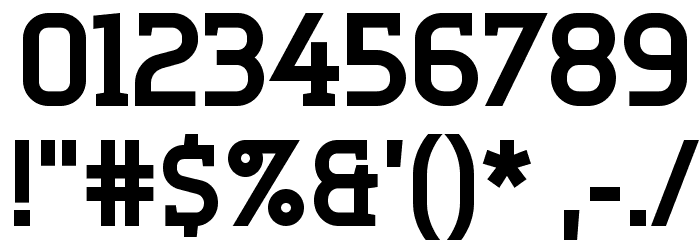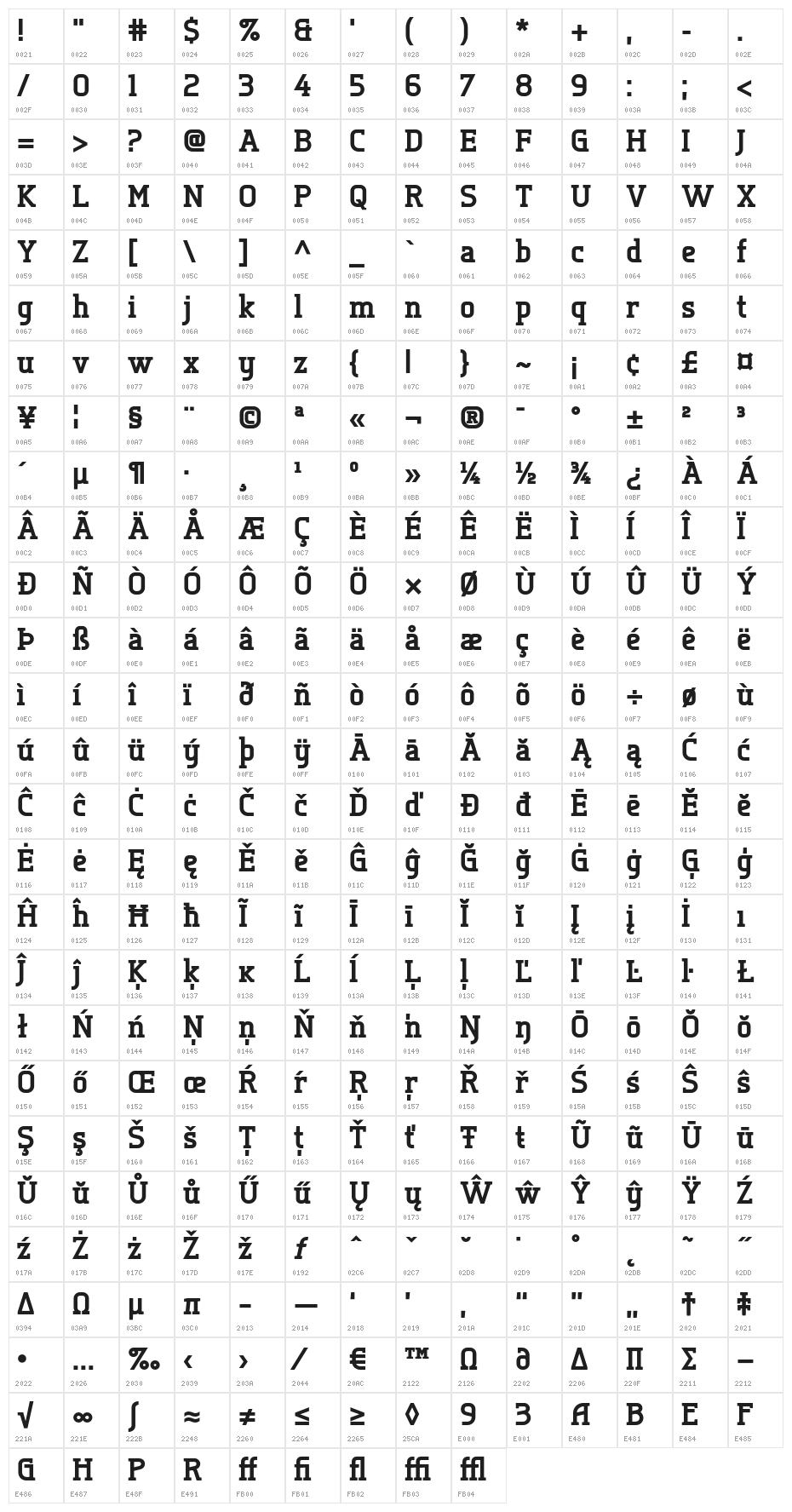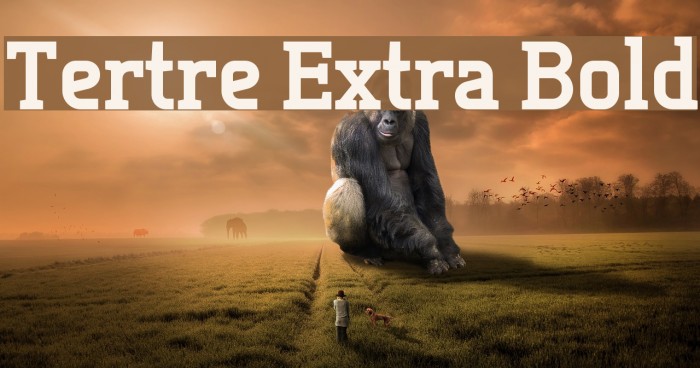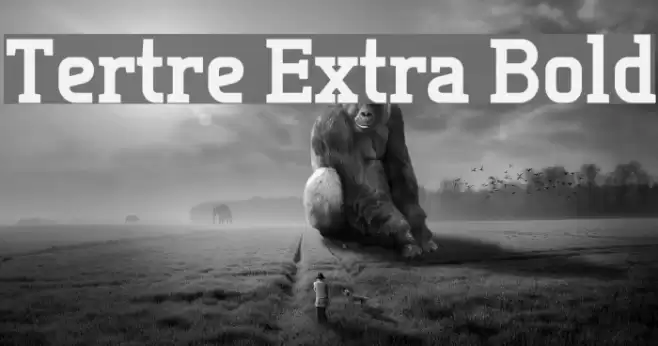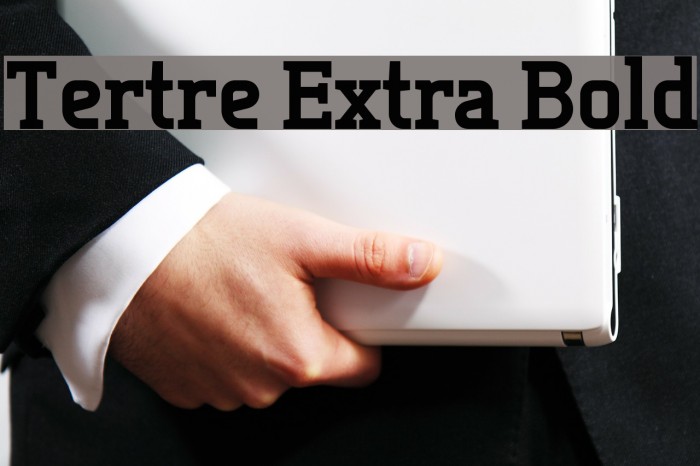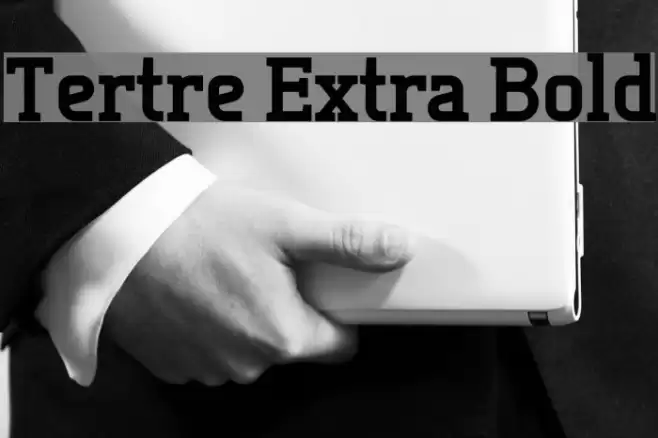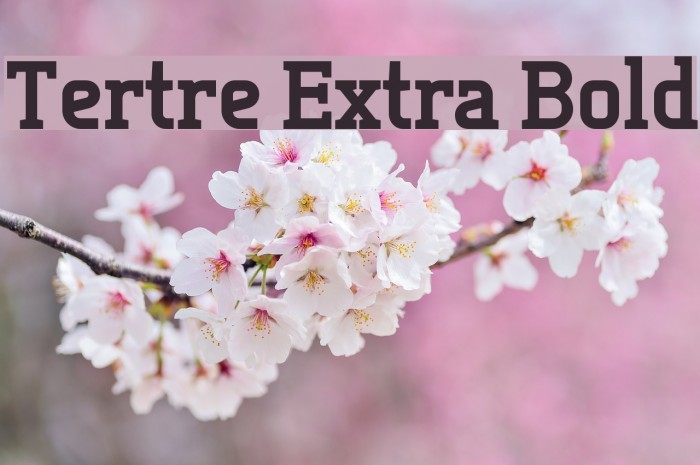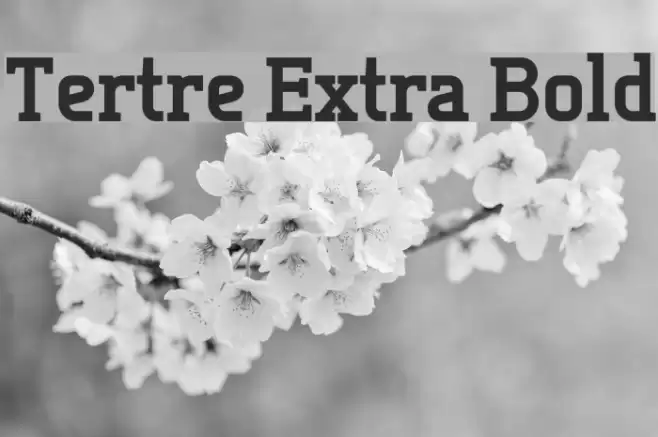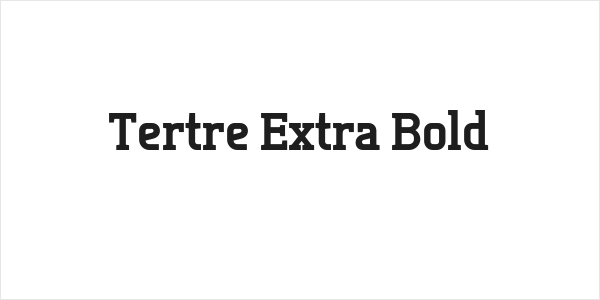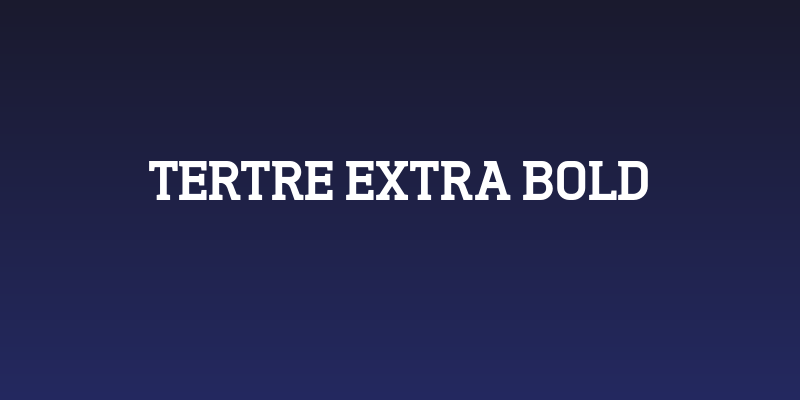
Tertre Extra Bold Font
Tertre Extra Bold Description
This font features a bold and robust design with thick strokes and a strong presence. The characters are well-defined with a slight geometric influence, providing a modern yet timeless appeal. The uppercase letters are uniform and commanding, while the lowercase letters maintain a consistent weight, ensuring readability. The numerals are clear and balanced, complementing the overall style. Special characters are distinct and integrate seamlessly with the rest of the font, making it versatile for various applications.